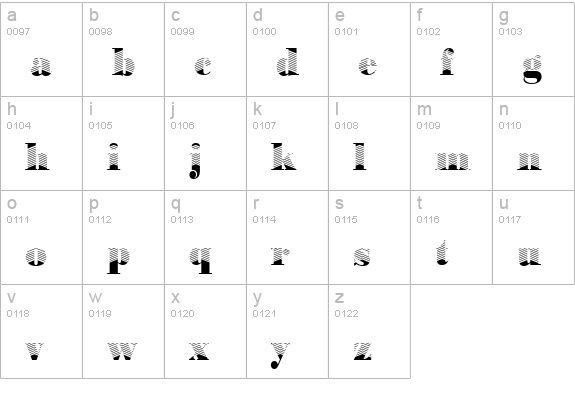
BodoniArrow-Regular Font Details
BodoniArrow-Regular is the standard, neutral variant in the BodoniArrow typeface family \xE2\x80\x94 well suited to general body text, paragraphs, and standard typographic work.
BodoniArrow-Regular font is a classic and elegant typeface that exudes sophistication and style. With its sleek lines and modern twist on traditional Bodoni design, this font is perfect for adding a touch of refinement to any project. The sharp arrow details add a unique and eye-catching element that sets this font apart from the rest. What makes BodoniArrow-Regular font even more appealing is that it is available for free download at FontsMarket.com. This means that you can easily access this stunning typeface without any cost, making it a great choice for designers, creatives, and anyone looking to elevate their typography game without breaking the bank. Whether you're working on a branding project, website design, or any other creative endeavor, BodoniArrow-Regular font is sure to make a statement and leave a lasting impression. Download it today and start using this versatile and stylish font in your next project!